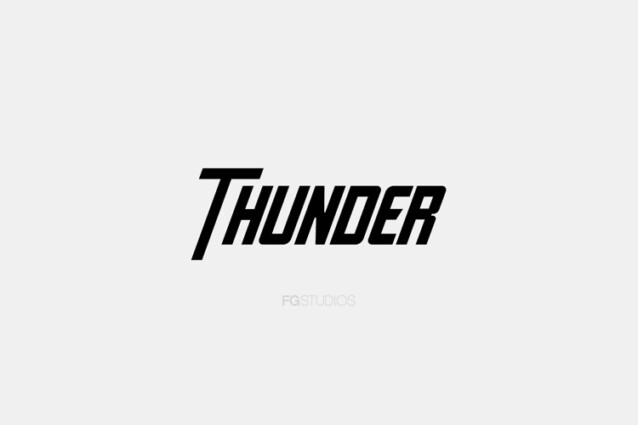
Thunder Font
Thunder Font is a modern display typeface most suited to headlines. It’s designed and shared by FG Studios. This font is great for your work such as posters, logos, branding, covers, banners, t-shirts and headers, or even large-scale artwork